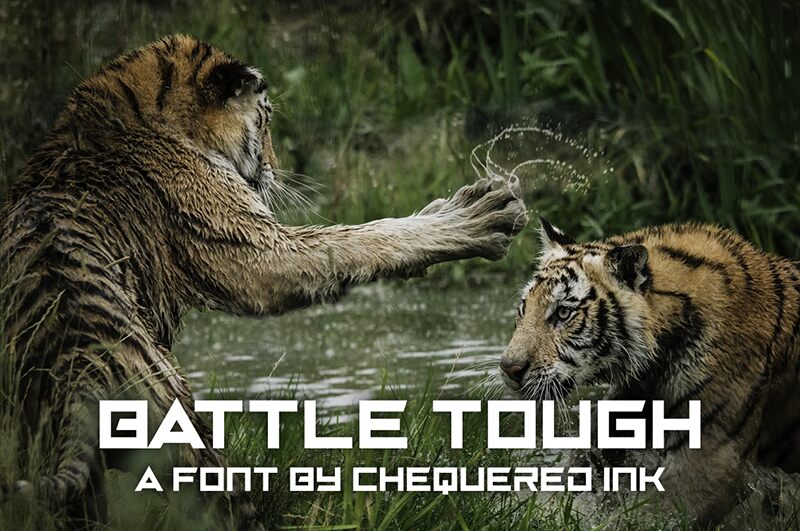
Battle Tough
Battle Tough font by Chequered Ink is a free techno display typeface with blocky, geometric characters. The industrial style shines through its wide expanded width, making it assertive and futuristic.
This font can be put to use in headlines, headings, posters, advertising material, packaging design, or presentations. It suits apparel design projects and product labels in addition to magazine design layouts.